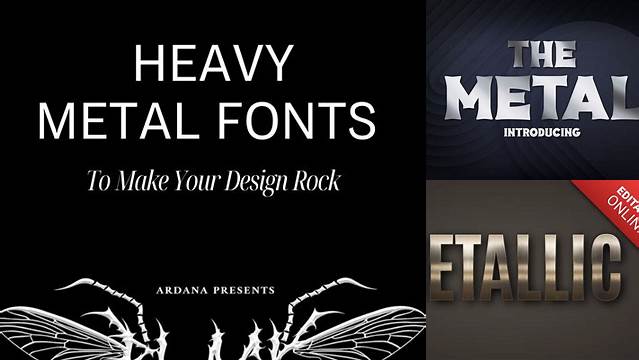
Metal Font: Free Downloads For Your Creative Projects
Hey guys! Are you looking to add some serious edge to your designs? You've come to the right place! In this article, we're diving deep into the world of metal fonts, exploring where you can find them for free and how to use them to make your projects stand out. Get ready to rock!
1. Understanding the Allure of Metal Fonts
Let's kick things off by understanding what makes metal fonts so captivating. It's not just about the look; it's about the feeling they evoke. Think of the raw power of a roaring engine, the intricate details of a handcrafted sword, or the gritty texture of a weathered steel beam. These are the inspirations behind metal fonts, and they bring that same energy to your designs. A well-chosen metal font can instantly add a sense of strength, durability, and industrial chic to anything from logos and posters to websites and video games. They're perfect for projects that need to convey a sense of toughness, sophistication, or a touch of the avant-garde. Choosing the right metal font can really take your project to another level, offering visual impact and a unique style that sets it apart. They provide a distinctive look compared to more common and traditional fonts, offering an interesting alternative for designers who want to make a statement. The flexibility and range of metal fonts available today means you're sure to find one that perfectly matches your design vision, bringing a powerful and edgy feel to your work.
4. Identifying Authentic Metal Fonts
So, how do you spot a true metal font from a regular one? Look for characteristics like sharp edges, industrial-inspired details, and a generally strong, bold appearance. Think about fonts that mimic the look of rivets, bolts, or stamped metal. These are the kinds of details that will really sell the metal effect. Pay attention to the texture and overall feel of the font as well. An authentic metal font should have a certain weight and presence that sets it apart from more generic fonts. Don't be afraid to experiment and try out different fonts to see what works best for your project. Ultimately, the best metal font is the one that perfectly captures the mood and message you're trying to convey.
5. Utilizing Metal Fonts in Logo Design
Using metal fonts in logo design can instantly give your brand a powerful and memorable identity. The strong, industrial feel of these fonts can convey a sense of strength, durability, and innovation. When choosing a metal font for your logo, consider the overall brand personality and the message you want to communicate. A bold, edgy font might be perfect for a fitness brand or a tech startup, while a more refined, sophisticated font could be a better fit for a luxury automotive company or a high-end manufacturing business. It's also important to think about the legibility of the font at different sizes. Your logo needs to be easily readable whether it's displayed on a business card, a website, or a large billboard. Experiment with different font pairings to create a unique and balanced look. Combining a metal font with a simpler, more neutral font can help create visual contrast and ensure that your logo stands out from the competition.
6. Metal Fonts for Website Headers
Metal fonts can make a bold statement in website headers, immediately grabbing the attention of visitors and setting the tone for your site. Imagine a website for a motorcycle repair shop using a rugged, metal-inspired font to display its name and services. The font instantly communicates the company's expertise and its connection to the world of machinery. When choosing a metal font for your website header, consider the overall design and branding of your site. The font should complement the color scheme, imagery, and other design elements to create a cohesive and visually appealing experience. Also, remember to optimize the font for readability on different devices and screen sizes. A font that looks great on a desktop monitor might not be as legible on a mobile phone. Using responsive design techniques can help ensure that your website header looks its best no matter how visitors are accessing your site. Don't be afraid to experiment with different metal fonts and font combinations to find the perfect look for your website header.
7. Creating Eye-Catching Posters with Metal Fonts
To make an eye-catching poster with metal fonts, you need to think about visual impact. The bold and industrial nature of metal fonts can really grab attention, making your posters stand out. Start by selecting a metal font that matches the theme and message of your poster. A gritty, distressed font might be perfect for a rock concert poster, while a more sleek and modern font could be ideal for a technology conference. Consider the color palette and background imagery as well. Contrasting colors can help your metal font pop, while a relevant background image can add depth and visual interest to your poster. Experiment with different layouts and font sizes to create a balanced and visually appealing composition. Use headlines and subheadings to guide the viewer's eye and highlight the most important information. Don't overcrowd the poster with too much text or too many design elements. A clean, minimalist design can often be more effective than a cluttered one. With a little creativity and attention to detail, you can create stunning posters that capture attention and effectively communicate your message.
8. Metal Fonts in Gaming Graphics
Metal fonts are an excellent choice for gaming graphics, adding a gritty, industrial, or futuristic feel to game titles, interface elements, and promotional materials. The strong and bold nature of metal fonts can help create a sense of power and intensity, enhancing the overall gaming experience. When selecting a metal font for your game, consider the genre and target audience. A rugged, metal font might be perfect for a post-apocalyptic shooter, while a sleek, futuristic font could be ideal for a sci-fi adventure. Pay attention to the legibility of the font, especially in small sizes. Game interfaces often require small text, so it's important to choose a metal font that remains readable even when scaled down. Consider using different metal fonts for different elements of the game, such as the title, menus, and in-game text. This can help create visual hierarchy and add variety to the overall design. Experiment with colors, shadows, and other effects to further enhance the look of your metal fonts. A subtle glow or a metallic texture can make your fonts stand out and add a touch of realism to your gaming graphics.
30. Metal Fonts in 3D Modeling and Design
Metal fonts bring a unique dimension to 3D modeling and design, enhancing the realism and aesthetic appeal of your creations. These fonts offer a way to integrate textual elements into 3D objects, whether for branding, labeling, or artistic expression. When using metal fonts in 3D, consider the font's geometry and detail. Choose fonts with clean, well-defined shapes that translate effectively into 3D models. Experiment with different extrusion depths to create varying levels of relief and visual impact. Consider the metal texture and material of your 3D object. Apply realistic metal shaders and textures to the font to enhance the sense of realism. Use lighting and shadows to accentuate the font's form and create depth. Pay attention to the font's placement and scale in relation to the overall design. Ensure the font is legible and visually balanced within the 3D composition. Use metal fonts strategically to add visual interest and convey information. They can be used to label parts, add branding elements, or create decorative patterns. Optimize the 3D metal font for rendering and performance. Simplify the geometry if necessary to reduce polygon count and improve rendering speeds. By carefully selecting the right metal fonts and applying them effectively in 3D modeling, you can create stunning and realistic designs.